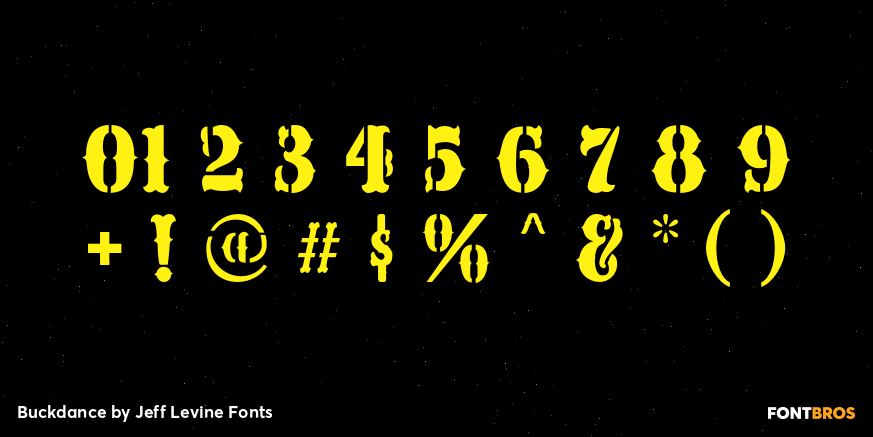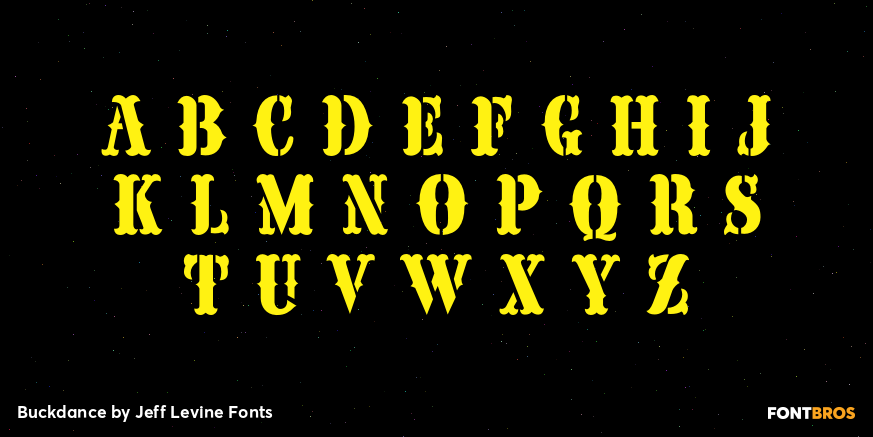
Buckdance
Stencil in nature, Western in feel, this font has both form and function. Can be used as a retro design or in a setting where a stencil font is needed.
Buckdance JNL Regular by Jeff Levine Fonts